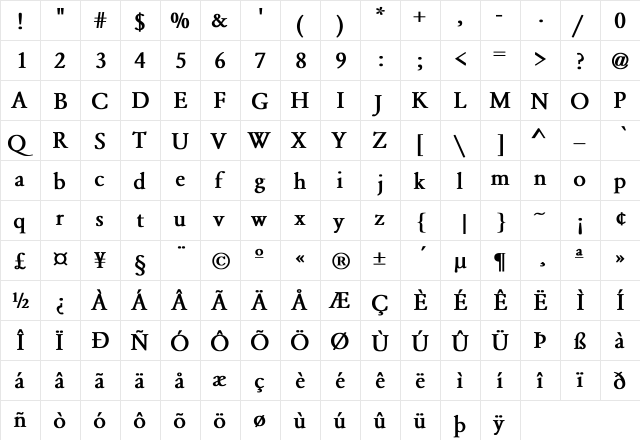
Garamond-Normal Bold Font Preview
Garamond-Normal Bold
Design Context for Garamond-Normal Typeface
Garamond-Normal takes a measured approach to typography — its balanced proportions and neutral character make it a reliable workhorse for both digital and print work. Its bold stroke weight gives it real presence on the page.